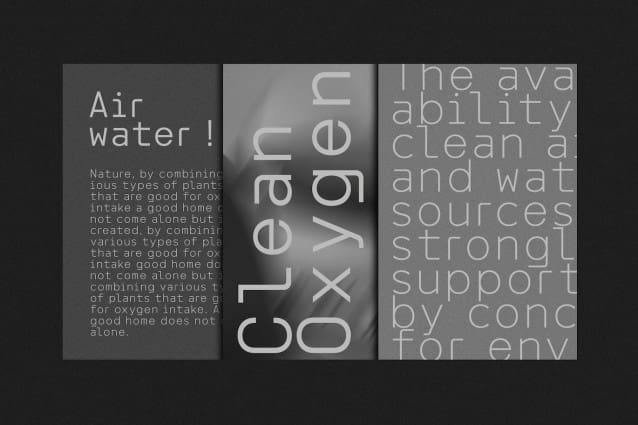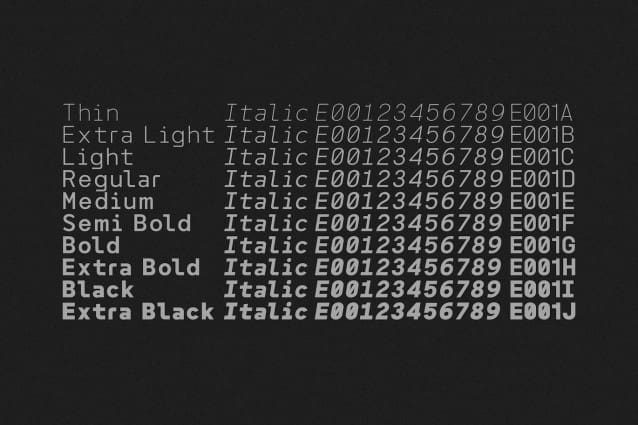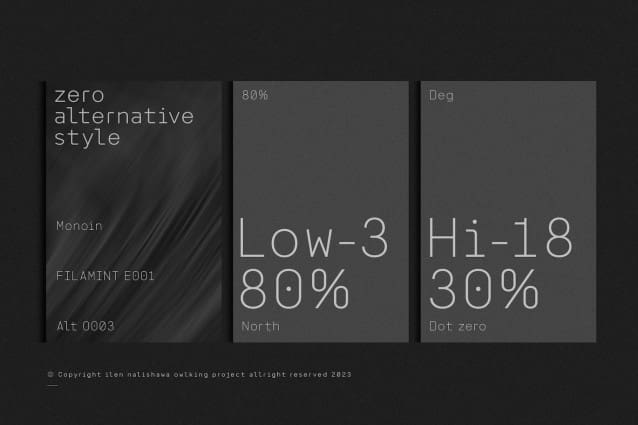
FilamintE001 Font
FilamintE001 Font, is a font family with a monospaced shape and style, with angles that are so firm / without indentation, which makes it look more assertive.. There are 20 font styles , thin to thick including italics, this is what makes FilamintE001 Font provide many choices in design needs. The monospaced style is arranged abnormally for the spacing between letters to give the impression of an old typewriter. I hope it gives a different personally impression, happy designing.